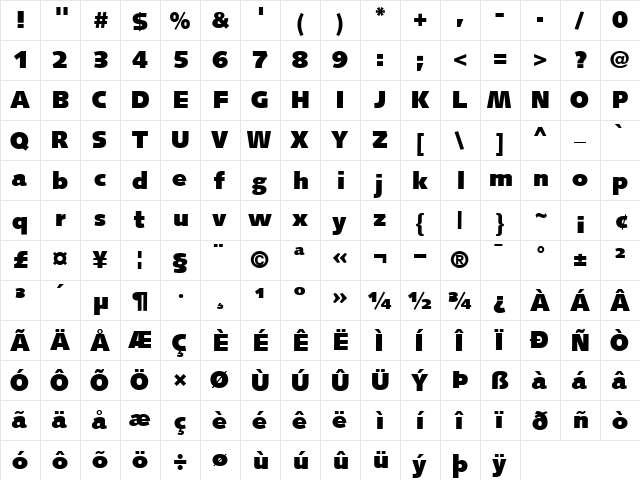
Syntax-UltraBlack Ultra Black
Design Context for Syntax-UltraBlack Typeface
Syntax-UltraBlack offers clean, dependable letterforms without strong stylistic allegiance, making it a practical choice for designers who need flexibility.